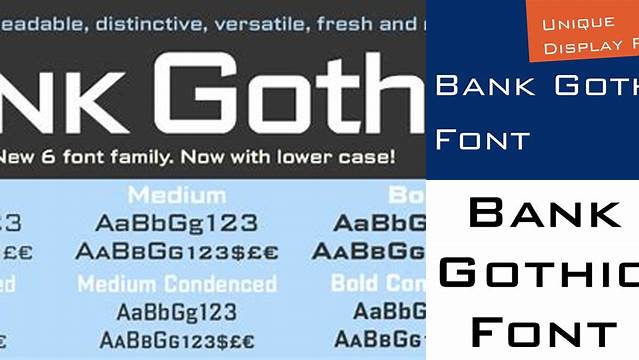
Bank Gothic Bold Condensed Display Font: Your Ultimate Free Download Guide
Understanding Bank Gothic Bold Condensed
First things first, let's get acquainted with the star of the show: Bank Gothic Bold Condensed. This font is a member of the Bank Gothic family, a sans-serif typeface renowned for its strong, industrial, and slightly futuristic vibe. The "Bold Condensed" part of its name tells you a lot about its personality. It's bold, meaning it's thick and commands attention. It's condensed, meaning the letters are squeezed together, making it ideal for headlines and titles where space is at a premium. Imagine a font that shouts, "Look at me!" That's Bank Gothic Bold Condensed in a nutshell. Its clean lines and geometric shapes give it a modern edge, making it a popular choice for various design applications. Think about movie posters, advertising campaigns, and even corporate branding. Bank Gothic Bold Condensed has a knack for looking both sophisticated and impactful. It's the kind of font that can instantly elevate the look and feel of your design. Moreover, the condensed nature of the font allows you to pack a lot of text into a small space without sacrificing readability, which is super handy for headlines and titles where brevity is key. You'll find it used extensively in digital and print media, from website headers to magazine layouts. The versatility of this font makes it a go-to for designers who need a font that can do it all.
This font's design is based on a geometric structure, giving it a crisp and clear appearance. The consistent stroke weights and uniform letterforms contribute to its overall legibility, ensuring that your message is communicated effectively. Moreover, Bank Gothic Bold Condensed has excellent legibility, making it a great choice for headings and subheadings, even at smaller sizes. This is crucial for ensuring that your message is accessible and easily understood by your audience. Whether you're a seasoned graphic designer or just starting out, this font is a valuable asset to add to your toolkit. It's a classic that never goes out of style, so you can be confident that your designs will always look contemporary and professional.
In Conclusion: Embrace the Power of Bank Gothic Bold Condensed!
So, there you have it, guys! Bank Gothic Bold Condensed is a fantastic font for grabbing attention and adding a touch of modern flair to your designs. With its free download readily available, there's no reason not to add it to your font library. Whether you're creating eye-catching headlines, designing sleek logos, or crafting stunning social media graphics, Bank Gothic Bold Condensed is a versatile and impactful choice. Remember to follow the design tips, pay attention to the license, and have fun experimenting. Happy designing!